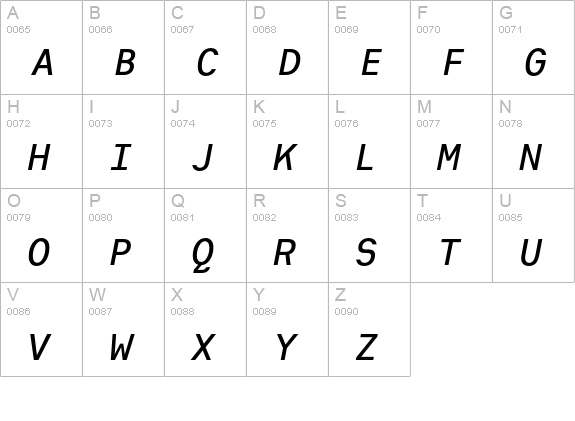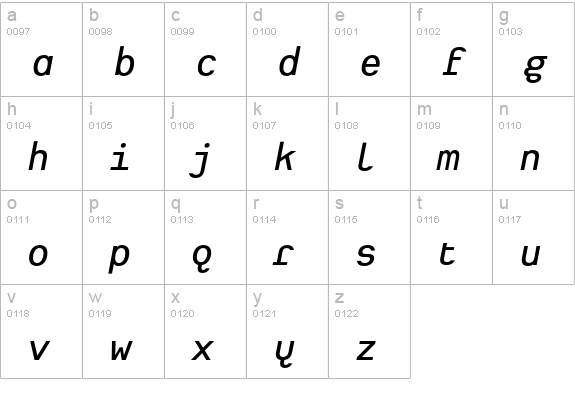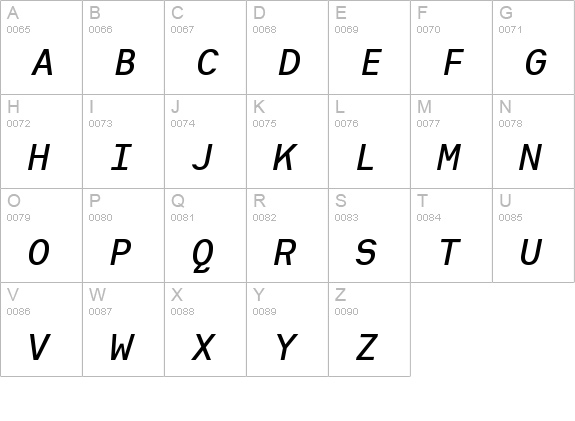
Heimat Mono SemiBold Italic Font Details
Heimat Mono SemiBold Italic is a sub-bold, structured, italic variant in the Heimat typeface family \xE2\x80\x94 well suited to sub-headlines and emphasised passages.
Heimat Mono SemiBold Italic is a sleek and modern typeface that exudes confidence and sophistication. Its semi-bold weight adds a touch of authority to any text, while the italic style brings a sense of dynamism and flair. The design of Heimat Mono strikes the perfect balance between professionalism and creativity, making it a versatile choice for a wide range of projects. What sets Heimat Mono SemiBold Italic apart is not only its aesthetic appeal but also its accessibility - this font is available for free download at FontsMarket.com. Whether you're a designer looking to elevate your next project or a content creator seeking a unique typographic solution, Heimat Mono SemiBold Italic offers a high-quality option that won't break the bank. Embrace the power of this font and bring your designs to life with its bold, italicized charm.